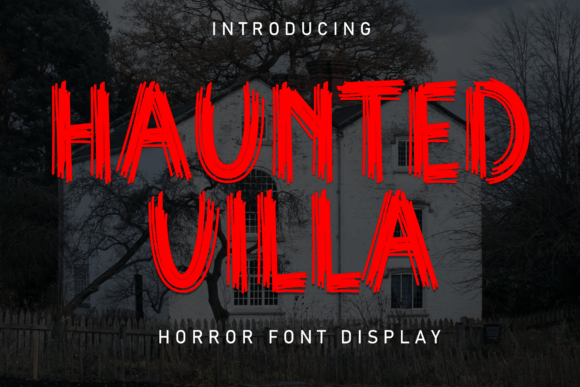
Introducing the Haunted Villa Font - A Spine-Tingling Display Typeface for a Bewitching Digital Presence!
Prepare to be spellbound by Haunted Villa, a font that's anything but ordinary. This captivating font from Strongkeng Old draws inspiration from the eerie charm of bone-chilling projects, haunted houses, and midnight horror movies. With Haunted Villa, you'll have the tools to craft an online presence that sends a shiver down the viewer's spine.
Unleash the Horror Ambiance:
Whether you're designing invitations, postcards, posters, or spine-tingling Halloween event headings, Haunted Villa is the perfect choice for conjuring an eerie ambiance. Its intricate details and spooky charm will leave your audience captivated and wanting more.
Mesmerize with Every Stroke:
Haunted Villa isn't just a font; it's an experience. Every stroke of this typeface oozes horror and mystery. From the haunting curves to the bone-chilling sharp edges, Haunted Villa is designed to evoke a sense of intrigue and suspense.
A Haunting Versatility:
This display font is not limited to Halloween-themed projects. Its versatility extends far beyond the realm of the macabre. Use Haunted Villa to add a touch of spooky sophistication to branding, logos, social media graphics, or website designs. Let your creativity run wild and explore the endless possibilities.
Why Choose Haunted Villa?
• Bewitching Designs: Haunted Villa is the key to creating designs that captivate and intrigue your audience, leaving them under your spell.
• Unleash Creativity: This font is a canvas for your imagination, allowing you to unleash your creativity and craft visuals that are both hauntingly beautiful and unforgettable.
• Stand Out From the Crowd: In a sea of ordinary fonts, Haunted Villa stands out as a beacon of originality, ensuring your designs leave a lasting impression.
• Endless Applications: From Halloween-themed projects to branding and social media graphics, Haunted Villa's versatility knows no bounds.